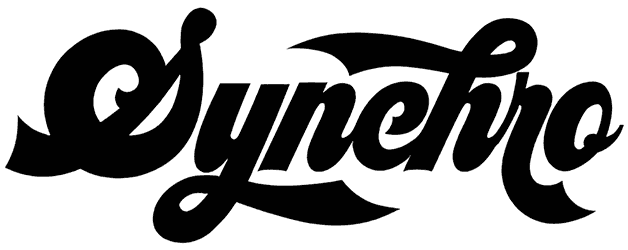
Syncrho Font
Syncrho is an old-school font with a well-crafted retro design that has stunning glyphs to give your typography the ultimate display! It offers bold characters that are also adventurous, especially with their swashes.
Utilize this Syncrho font with its attractive full set of letterforms and include it in flyers, logos, branding, invitation cards, book covers, or wherever you would like a unique, funky style.